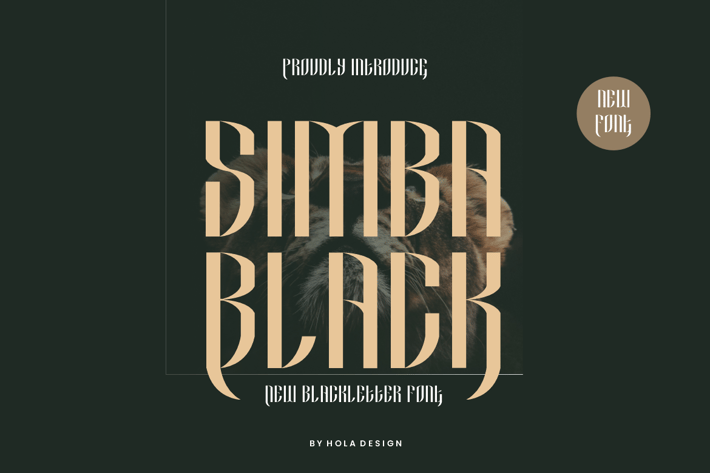
Simba Black - Serif & Medeval Font
Simba Black Font is unique . Ready to use for your design like labeling, movie sceen, poster, movie title, gigs, album covers, logos, and much more.